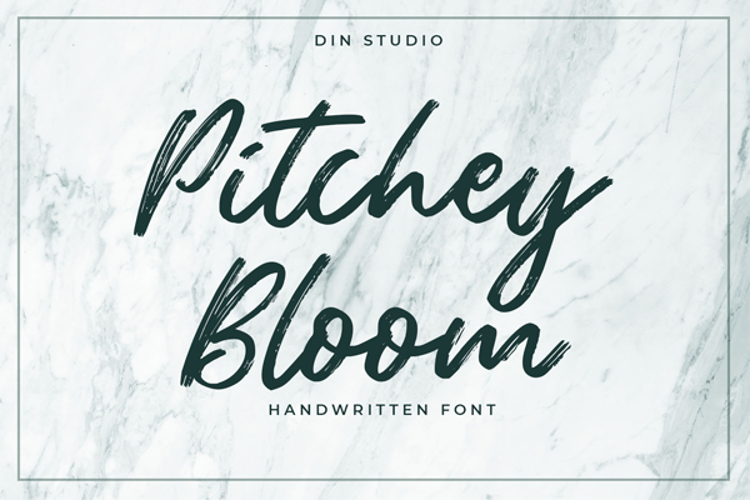
Pitchey Bloom Font
Product Description :
Pitchey Bloom is a modern and handwritten font. With a classy and natural handwritten style, it creates a classy and beautiful typeface. It is most suitable for branding, advertisements, invitations, merchandise, logotypes, and quotes.
Features include:
• Stylistic Sets
• Numerals and Punctuations